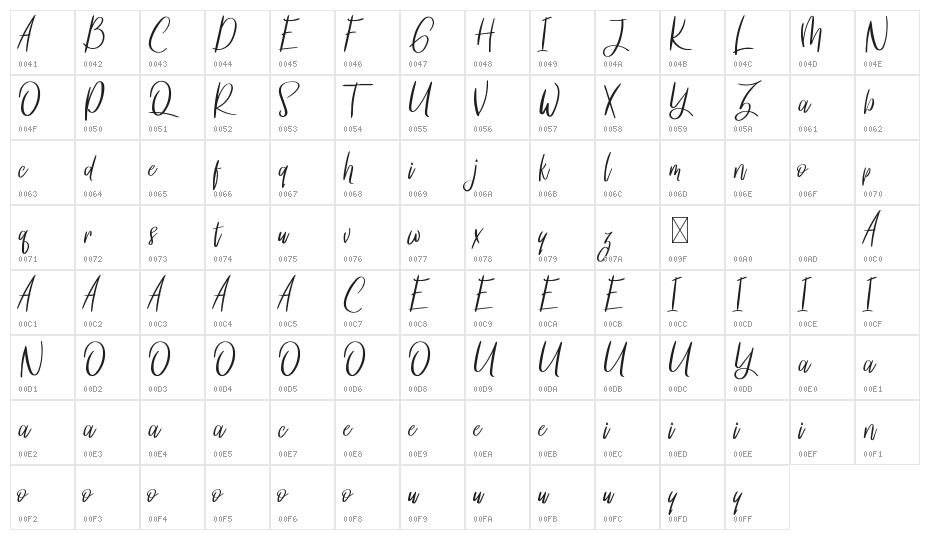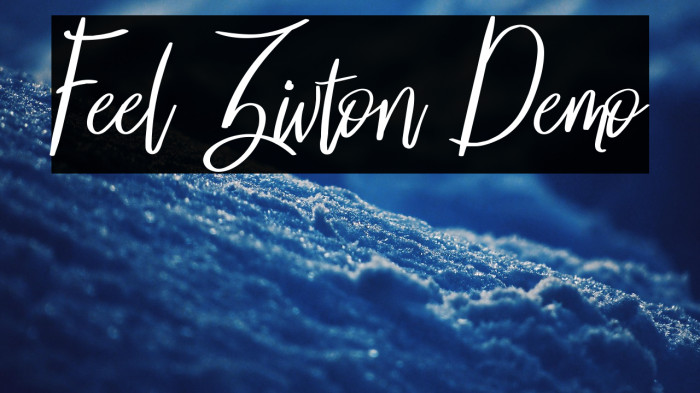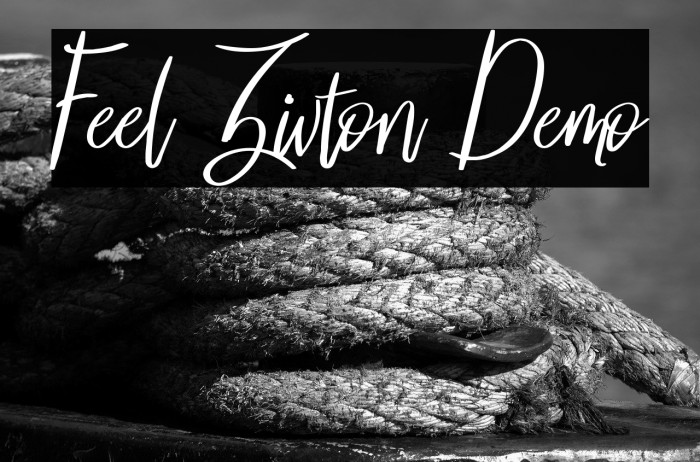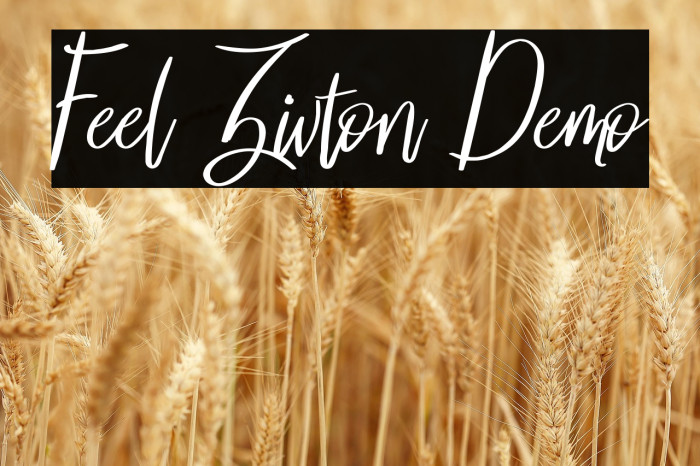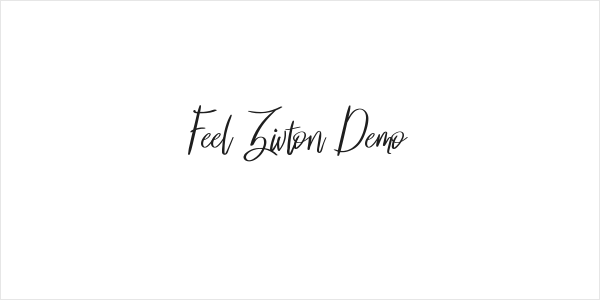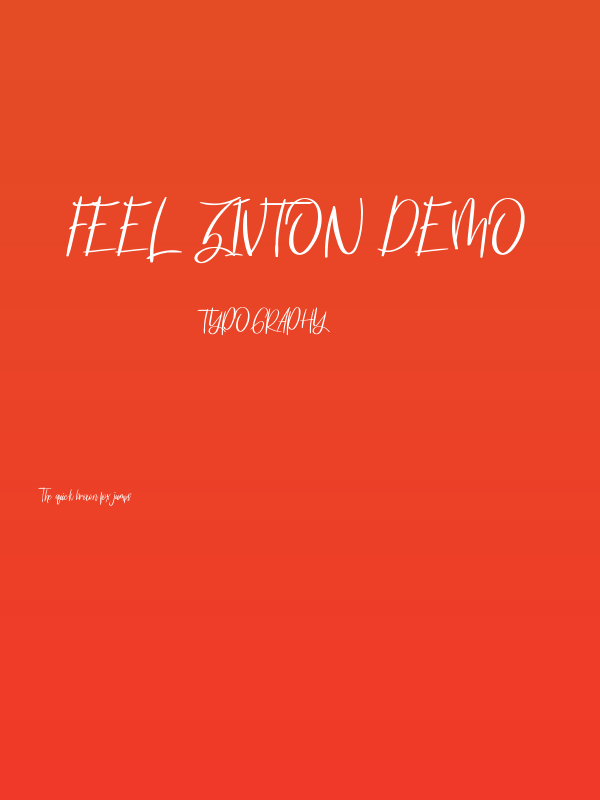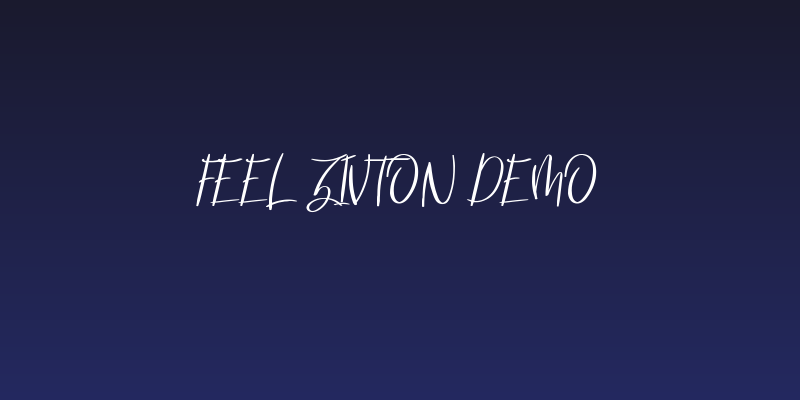
Feel Zivton Demo Font
Feel Zivton Demo Description
This font features a dynamic and expressive handwritten style, characterized by its fluid and flowing letterforms. The strokes are smooth and slightly irregular, giving it a personal and artistic touch. The uppercase letters are tall and elegant, while the lowercase letters maintain a consistent rhythm with playful loops and curves. The overall appearance is both casual and sophisticated, making it suitable for creative and informal applications. The font's unique style is perfect for adding a personal touch to any design project.